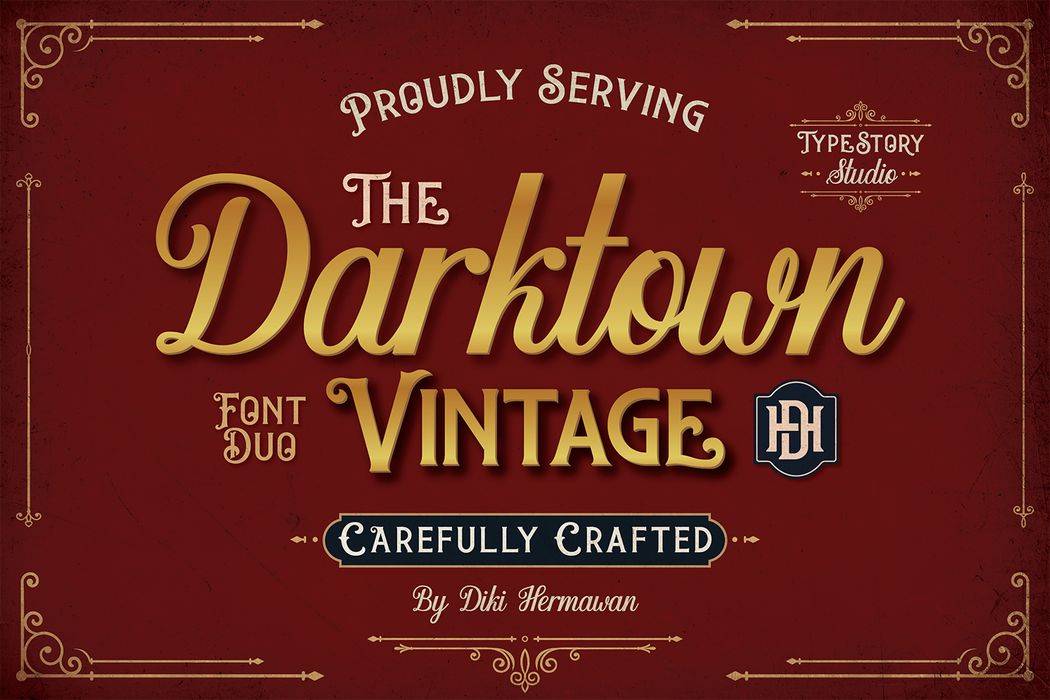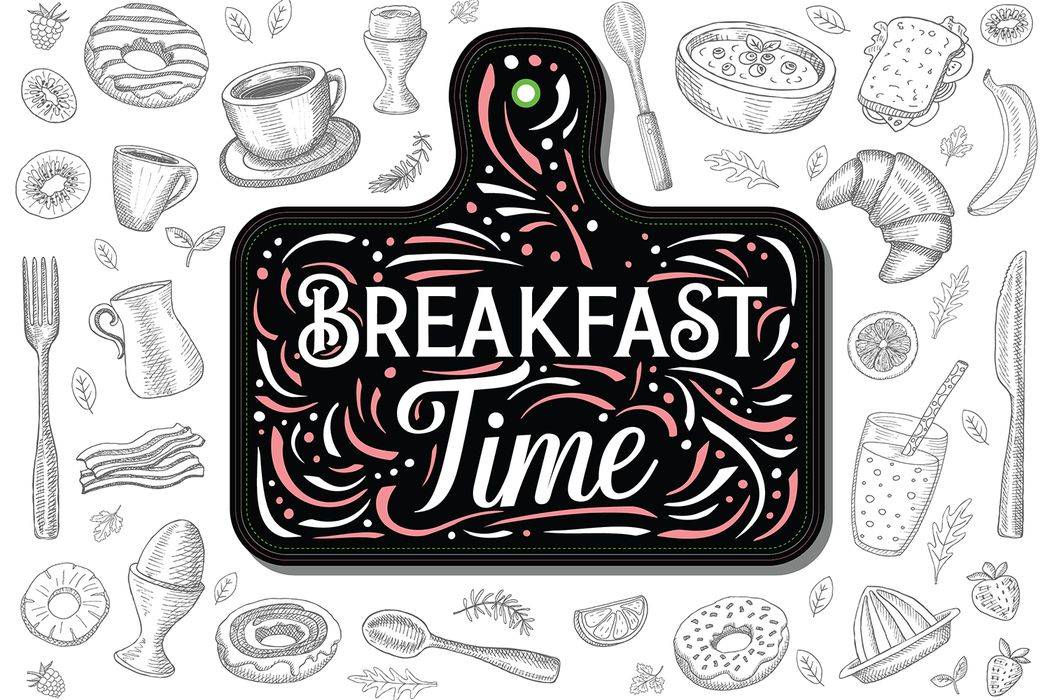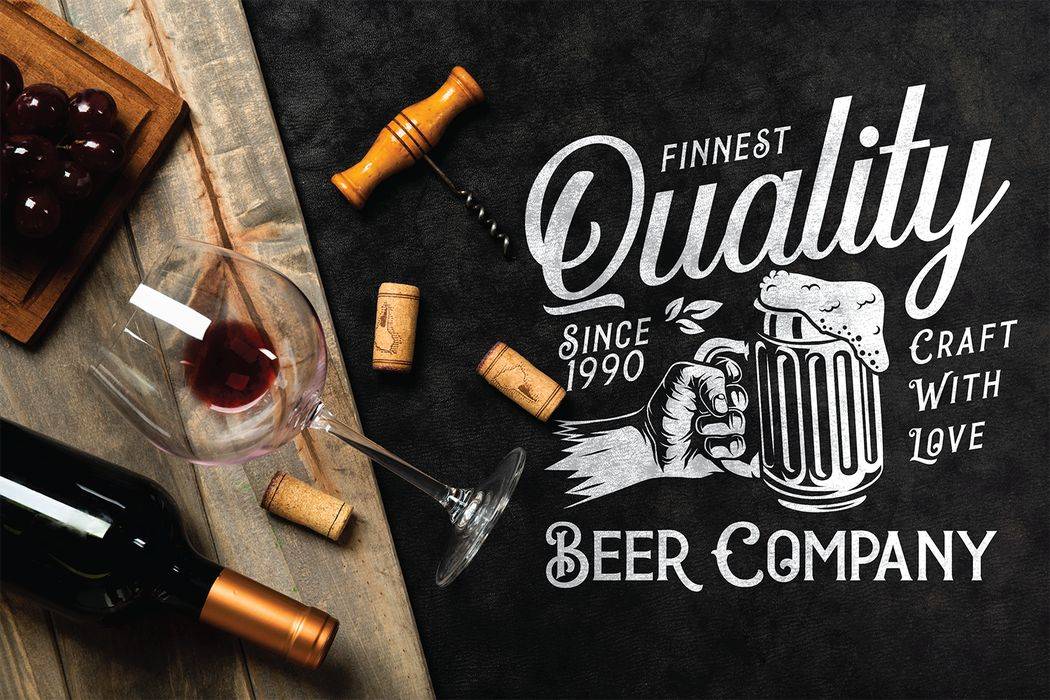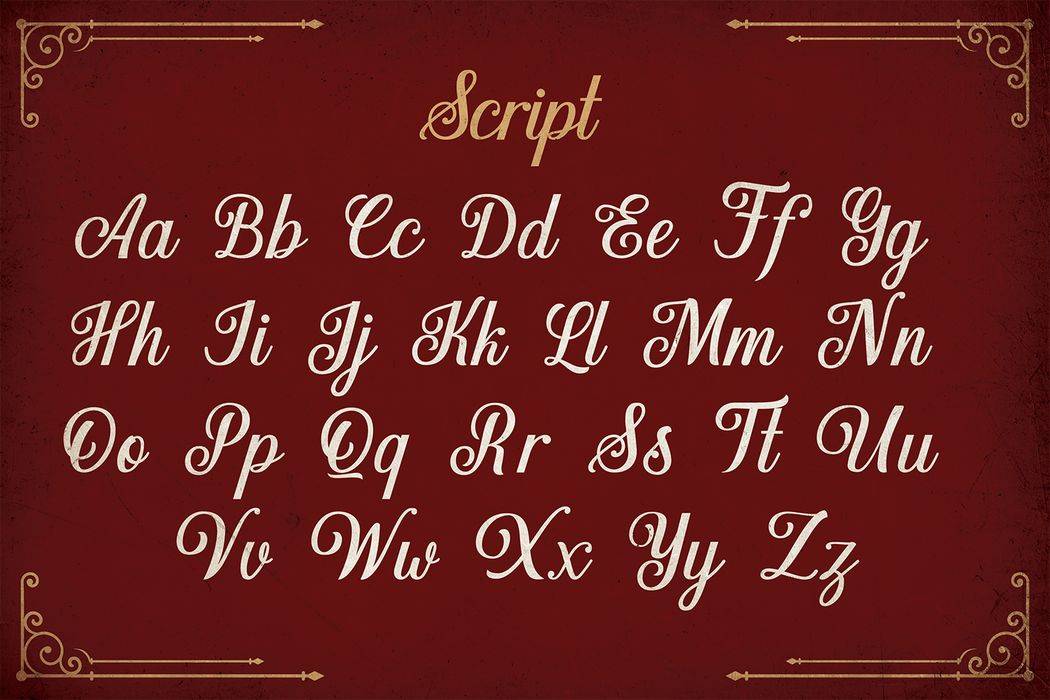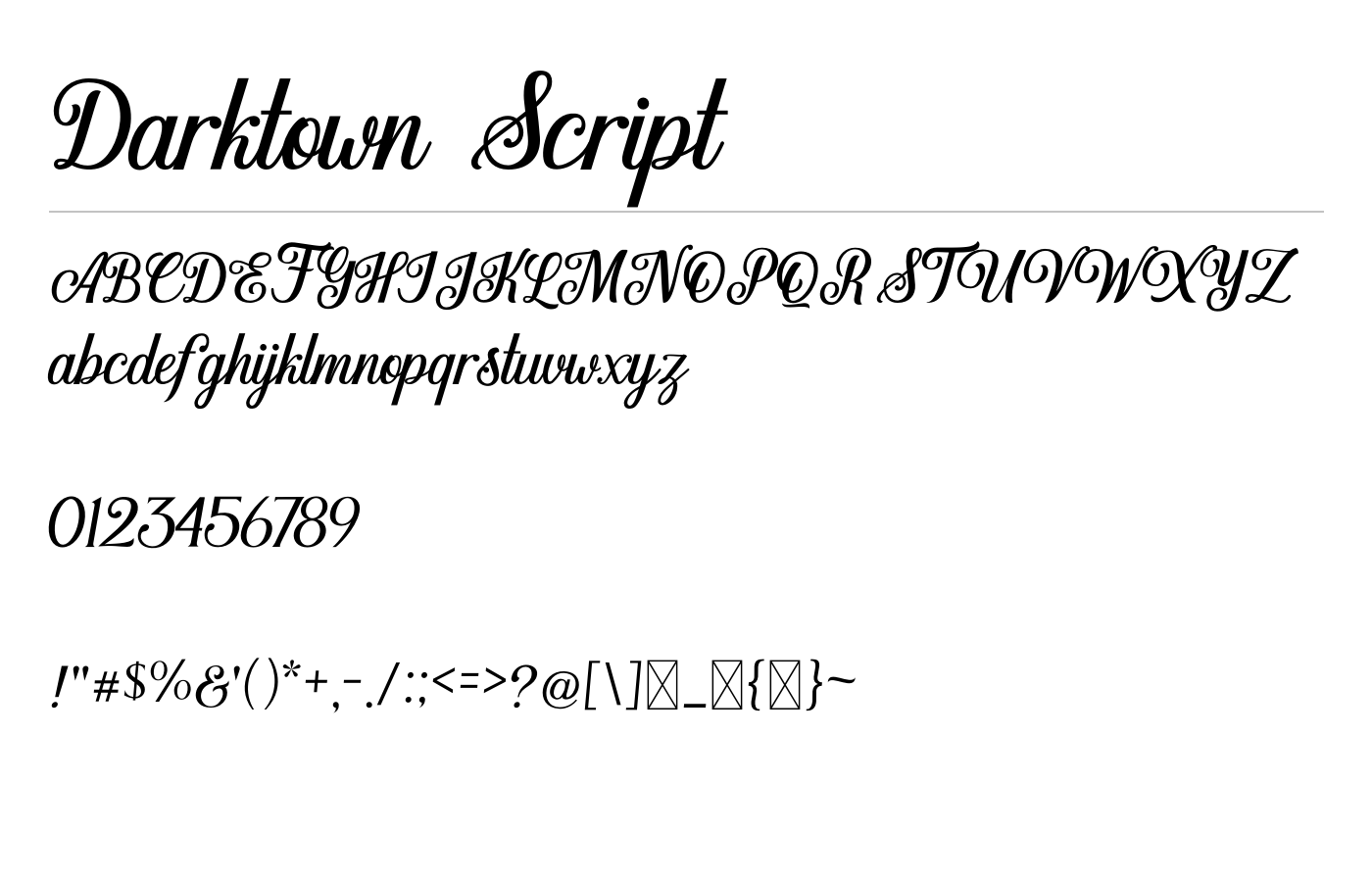
Darktown Script is an elegant, narrow script font with refined, flowing letterforms that combine classic cursive charm with a slightly modern flair. It features high contrast strokes, stylish swashes, and a graceful, handwritten feel, making it perfect for luxury branding, invitations, and sophisticated logo designs. This font adds a touch of vintage elegance with its decorative capitals and dynamic curves, ideal for creating memorable, classy impressions.
Darktown Font
About Darktown Font